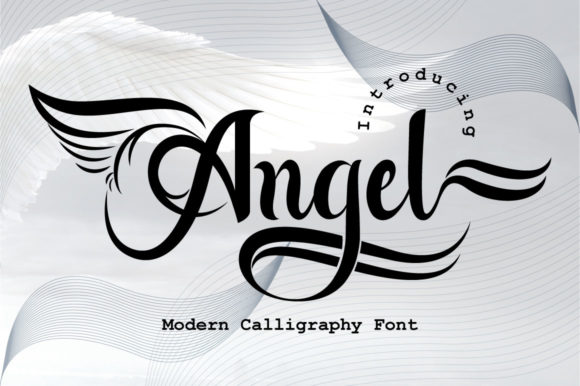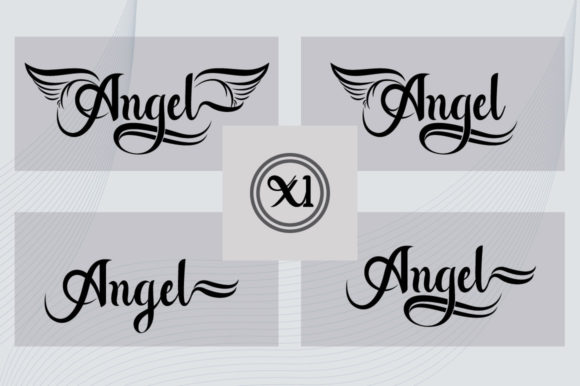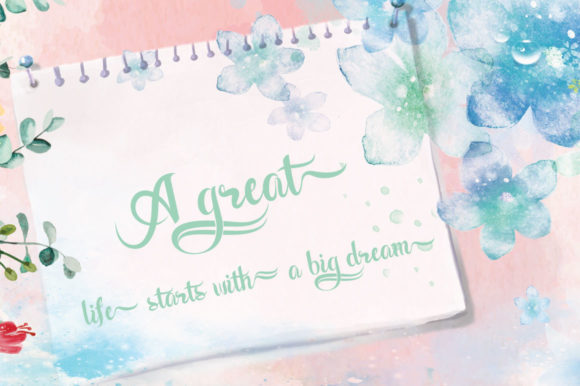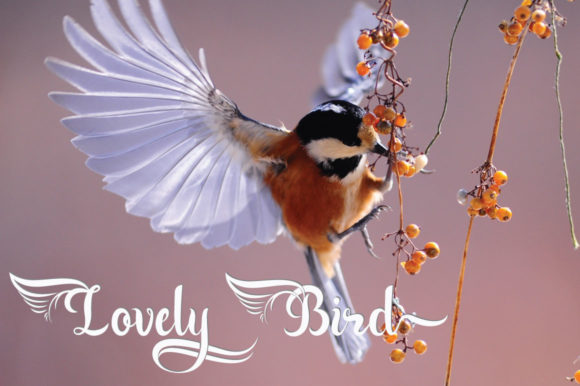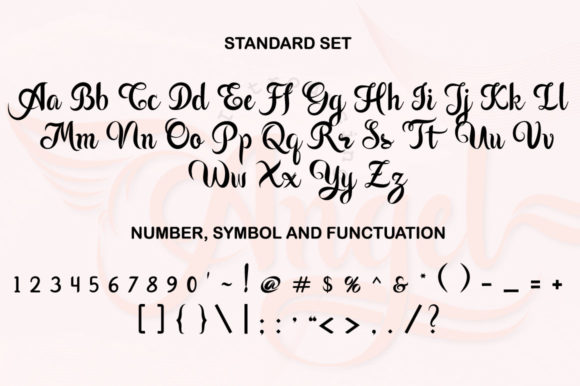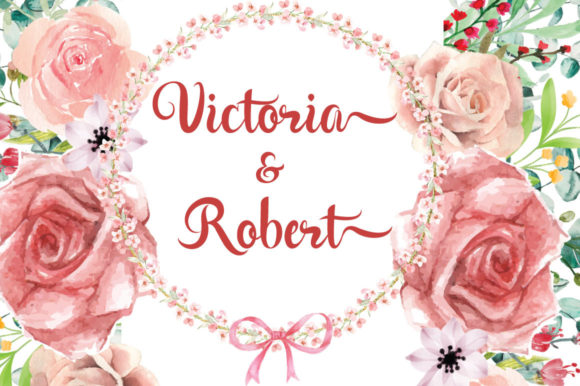
About Angel Font
Angel is a different kind of graceful script font. Fall in love with its ravishing style and use it to create beautiful designs. This font is PUA encoded which means you can access all of the amazing glyphs and ligatures with ease!